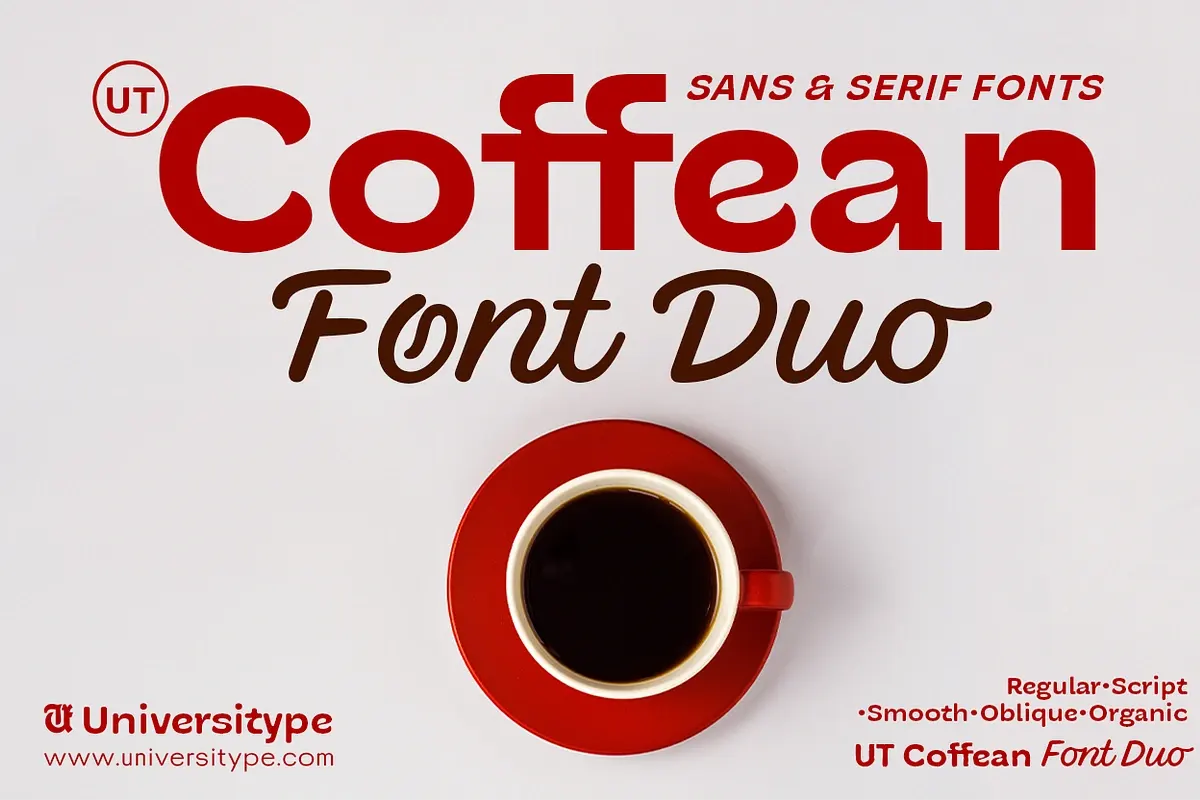
UT Coffean Font Duo Free Download is a stylish and versatile font combination that pairs a sleek sans-serif with a creative script font, ideal for modern branding, logo design, invitations, and social media graphics. The combination of clean, sharp lines with fluid handwritten strokes makes it perfect for projects that require both professionalism and personal flair.
Whether you're designing for a coffee shop, crafting an elegant event invitation, or building a contemporary brand identity, UT Coffean adds a sophisticated and fresh touch to your work. The pairing of these fonts gives you flexibility to create both bold statements and delicate accents.